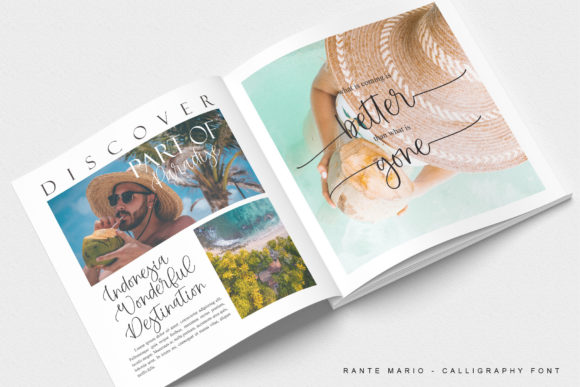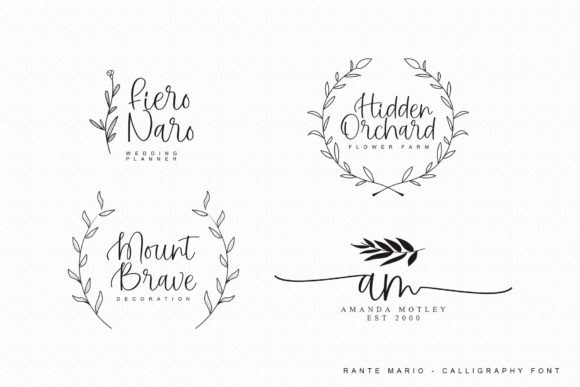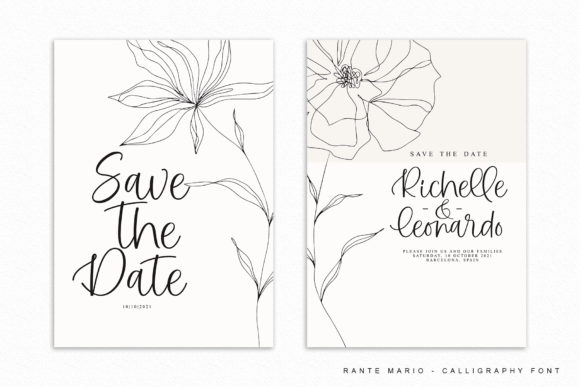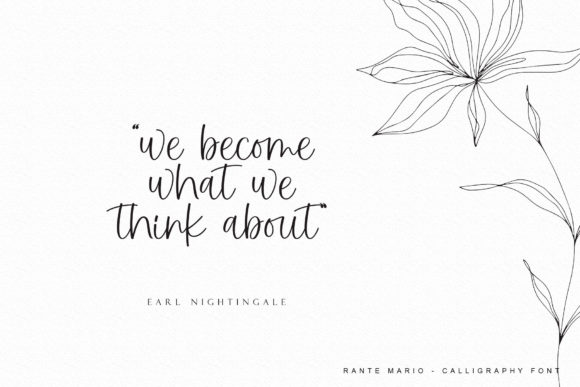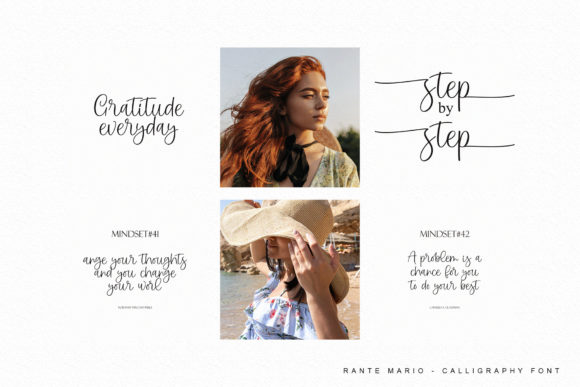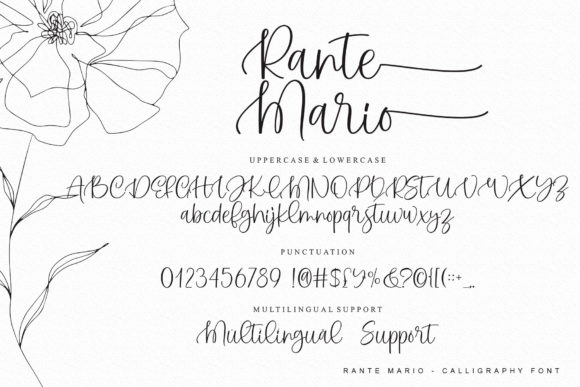
Introduction to Rante Mario Font
Rante Mario is an exquisite handwritten font, masterfully designed to become a true favorite.
It maintains its classy calligraphic influences while feeling contemporary and fresh Rante Mario is PUA encoded which means you can access all of the glyphs and swashes with ease.